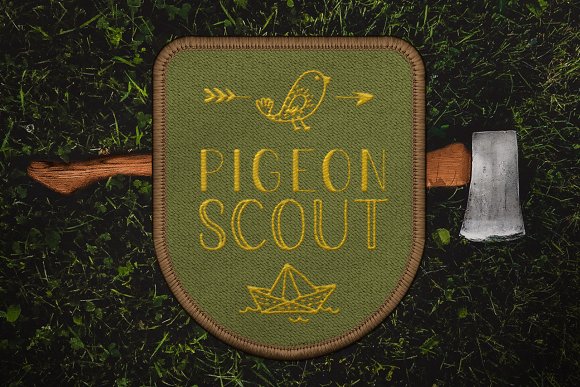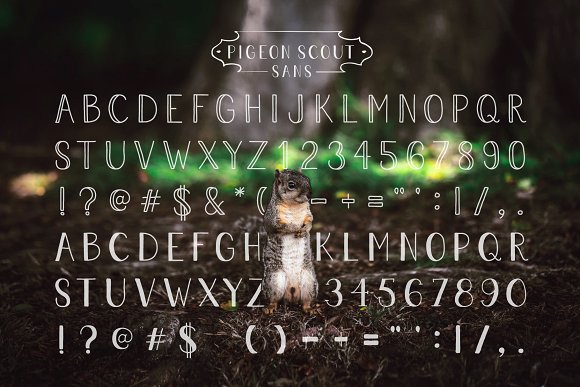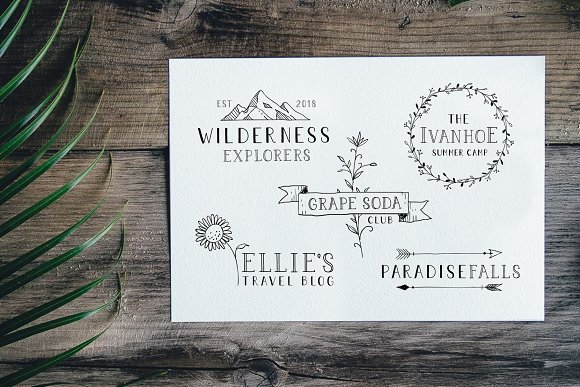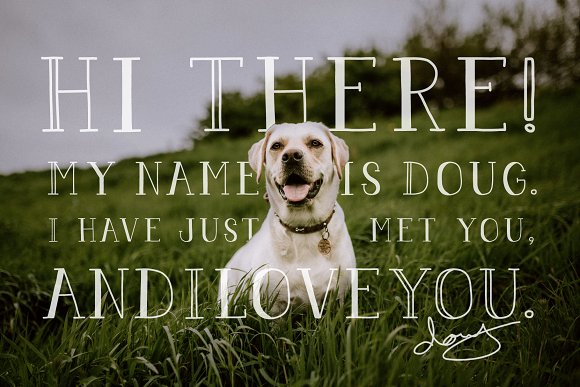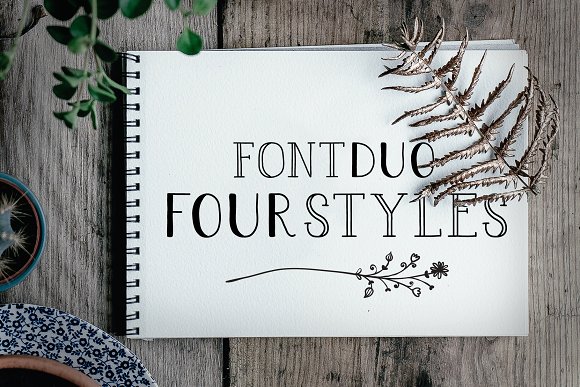
Pigeon Scout Font Collection
Pigeon Scout is a hand drawn font. All capital letters that comes in 4 styles – Serif, San Serif, Outlined, and Solid. Along with numbers and symbols.
This font is perfect for rustic, outdoor, and nursery themed designs. It also works great when used for hand drawn logo designs.